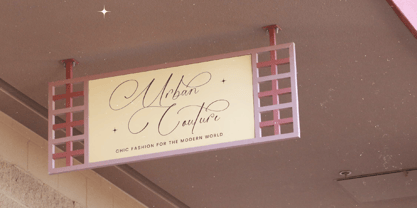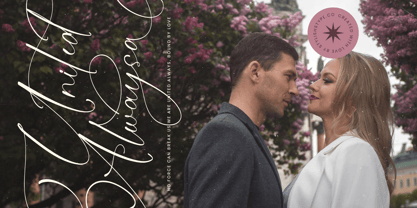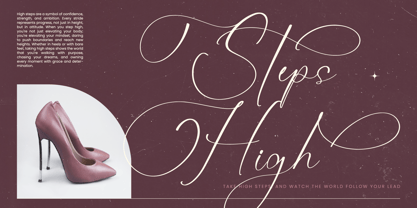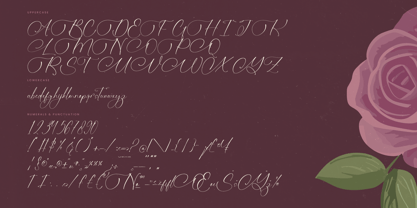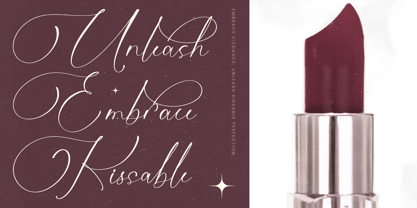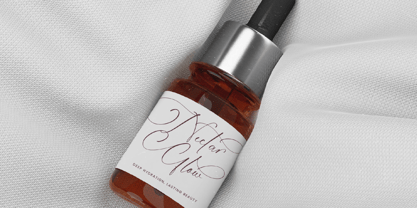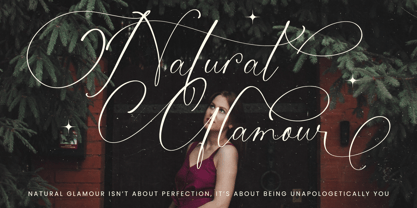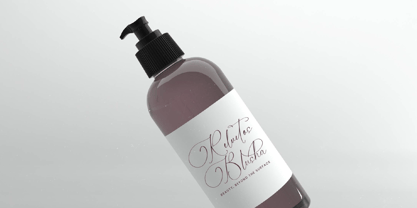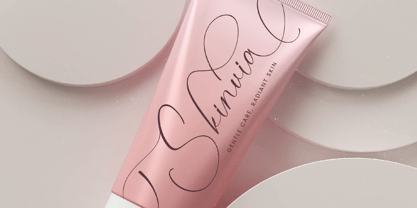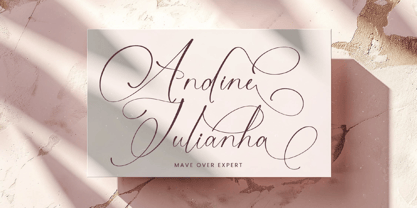
Michelin Samantha
The Michelin Samantha Font Family was designed by Heru Utama Putra and published by Stylishtype Studio. Michelin Samantha contains 2 styles and family package options.
Michelin Samantha - Stylish Calligraphy Font , from Stylishtype, Suitable for any projects such as: logos, branding projects, homeware designs, product packaging, mugs, quotes, posters, shopping bags, t-shirts, book covers, name card, invitation cards, greeting cards, label, photography, watermark, special events, and all your other luxury and beautiful projects that need a Luxury Script taste.